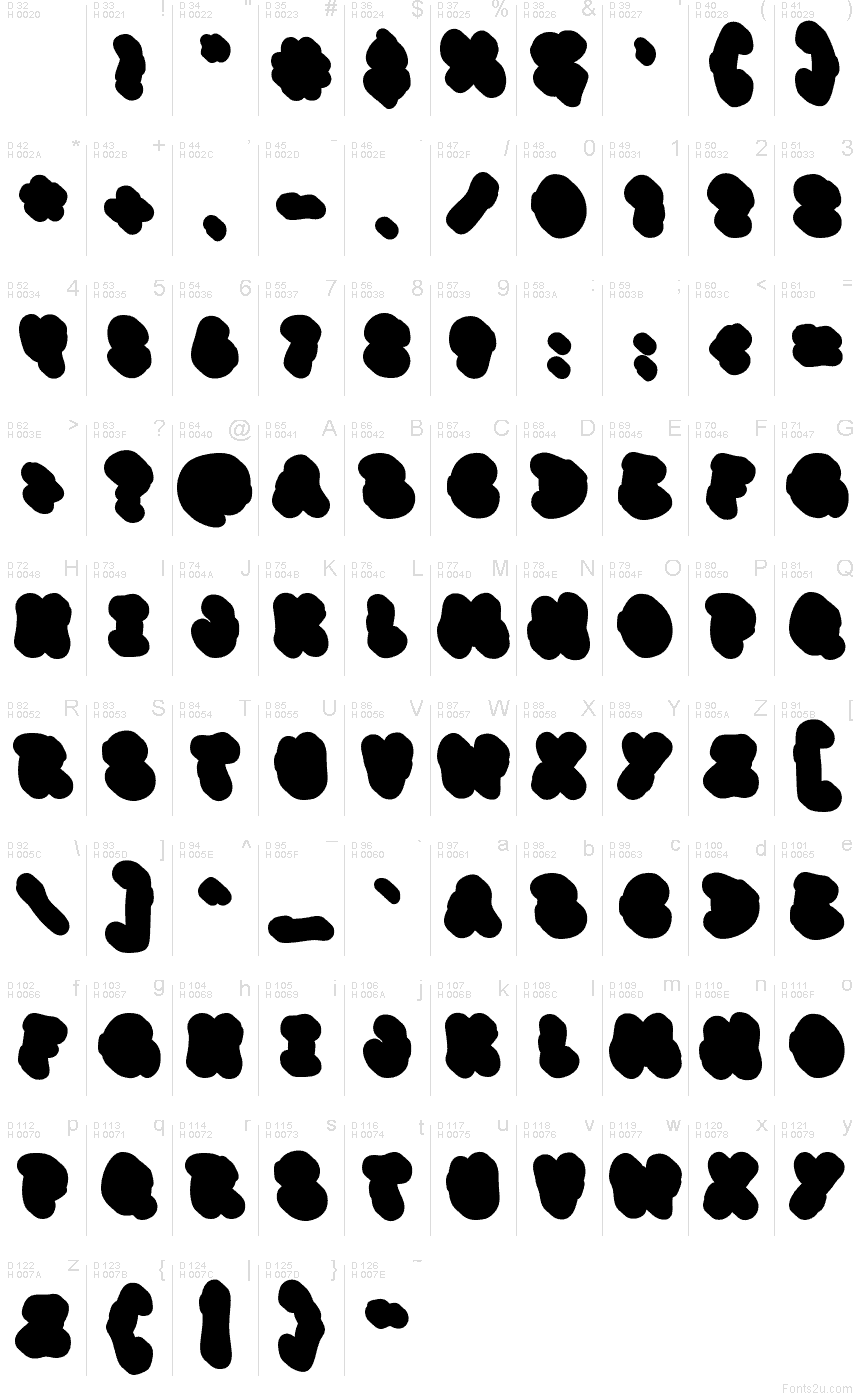
Rift Punk Extrude font by Muhammad Panji Ramdhani of Sipanji x Cikareotype comes from the Rift Punk family and is a free graffiti font. It hits like a fresh tag-fat, bouncy strokes with soft, inflated edges and a chunky extruded shadow that makes every word feel lifted off the wall. The tight rhythm and rounded weight keep it loud without turning messy, even when you stack lines.
Using Rift Punk Extrude shines on streetwear graphics, skate posters, album covers, sticker packs, YouTube thumbnails, event flyers, and punchy logo locks. This free font also works beautifully for headline text on merch or packaging when you want that inky, sprayed-on attitude with real depth. Pair it with a plain condensed sans for captions, and give Rift Punk Extrude a little extra spacing so the shadow reads cleanly at smaller sizes.